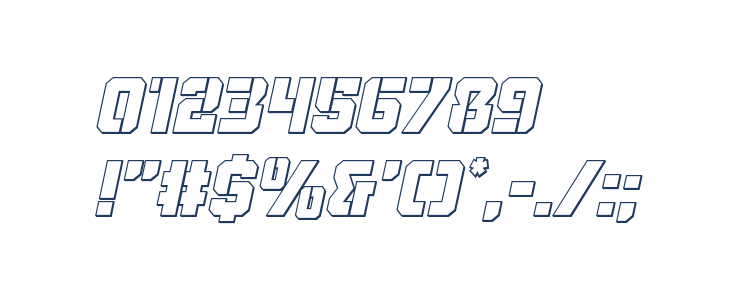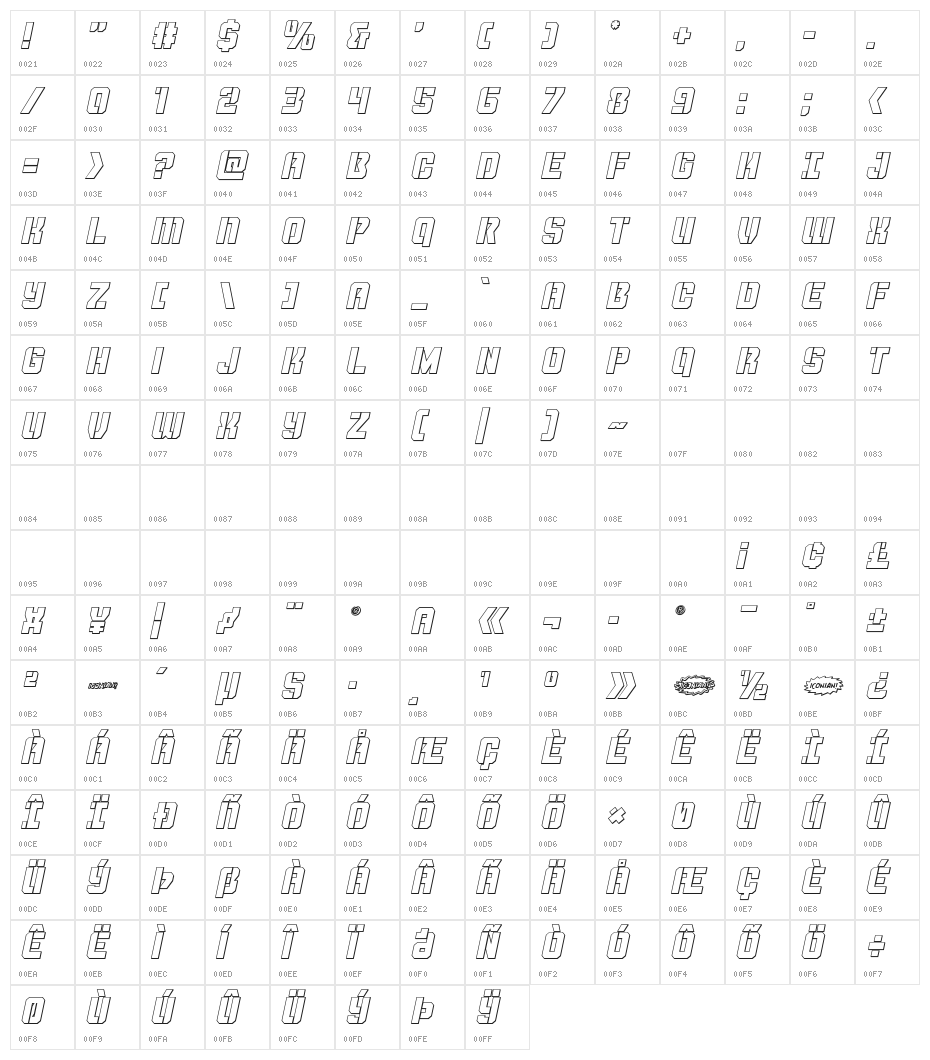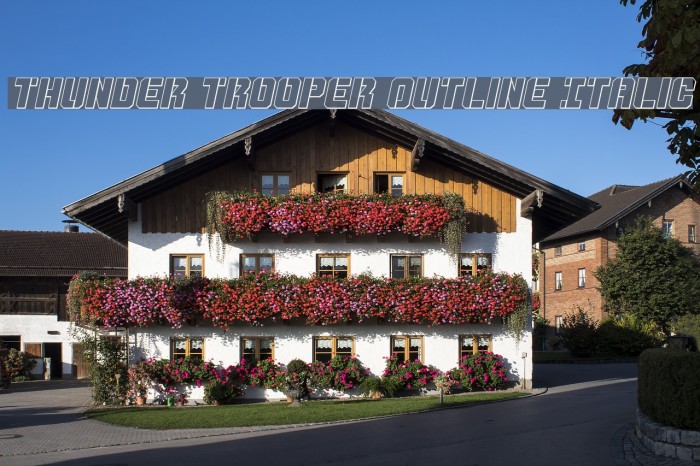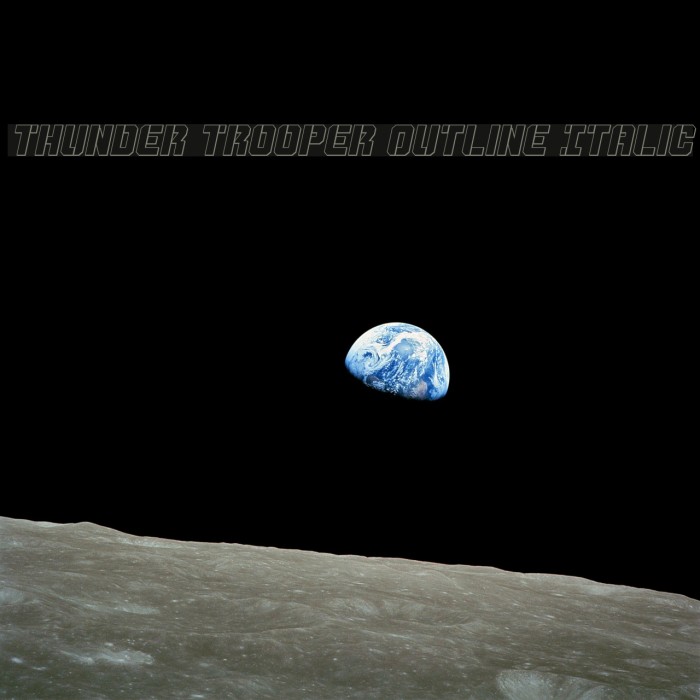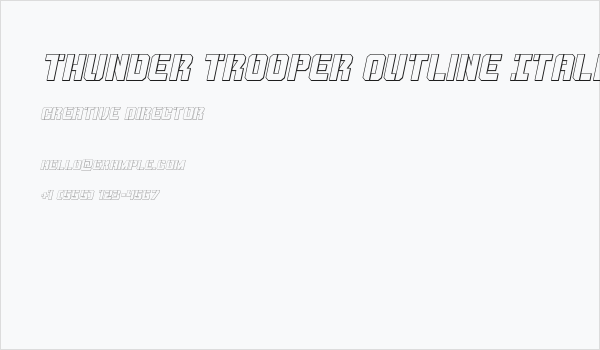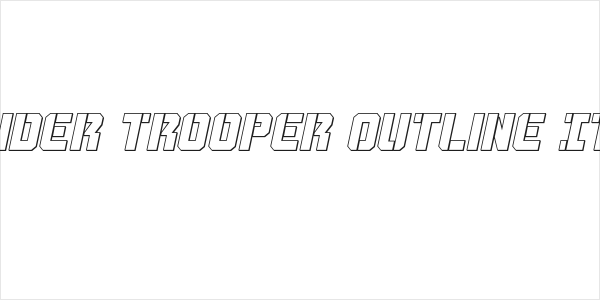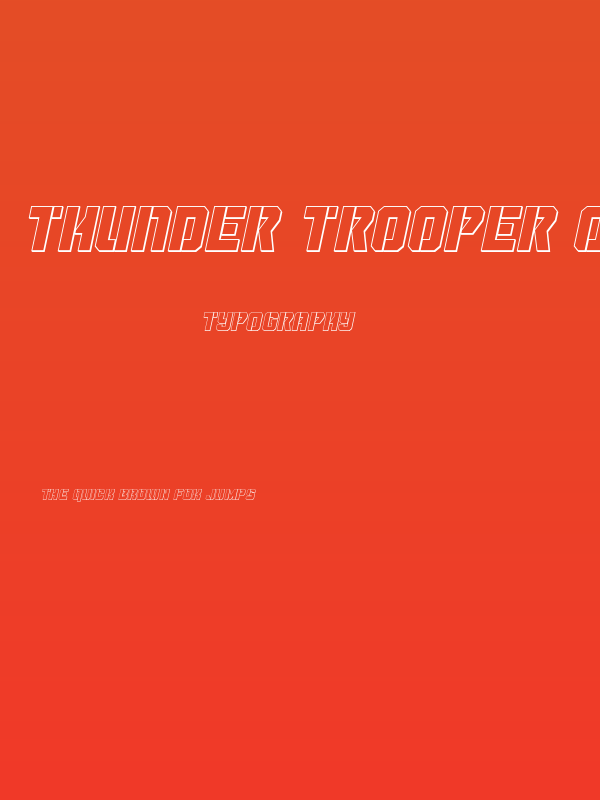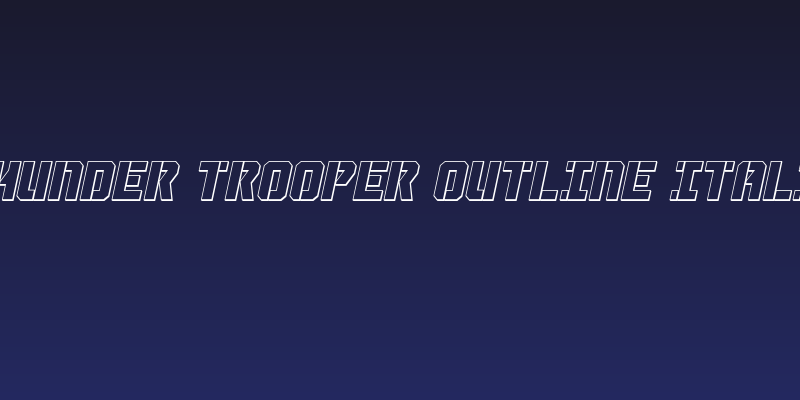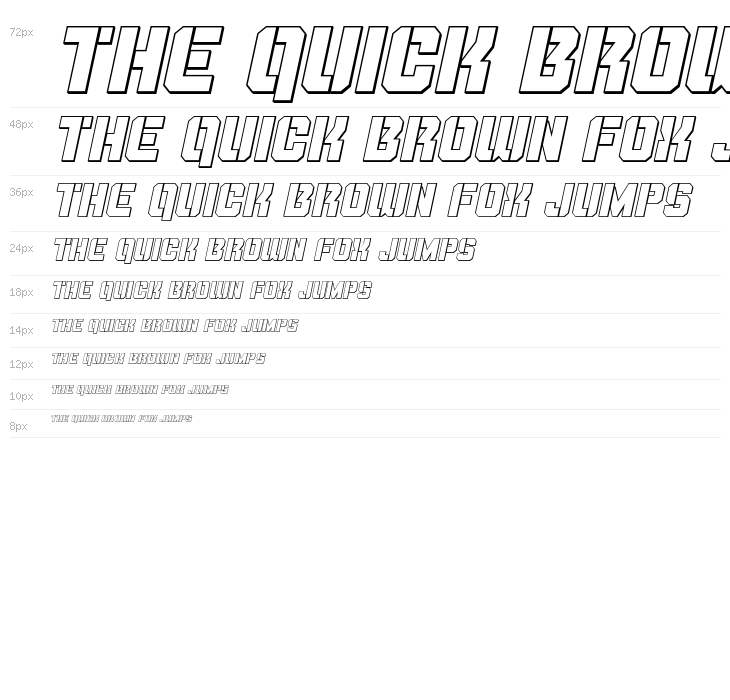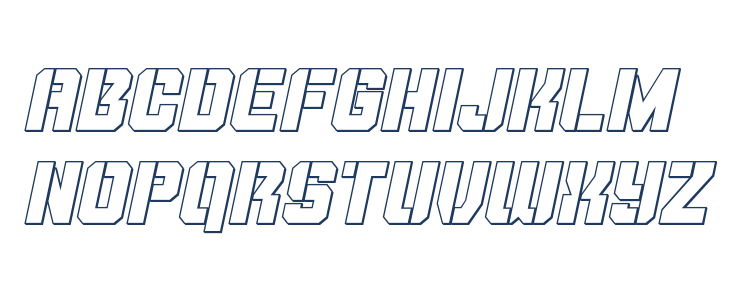
Thunder Trooper Outline Italic Font
Thunder Trooper Outline Italic Description
This font features a bold, angular design with an outline style that gives it a futuristic and dynamic appearance. The italic slant adds a sense of motion and speed, making it ideal for projects that require a modern and energetic look. The characters are uniformly spaced with a consistent outline thickness, providing a clean and structured appearance. The uppercase letters are particularly striking, with sharp edges and geometric forms that enhance the overall aesthetic. The numbers and special characters maintain the same stylistic approach, ensuring consistency across all elements.